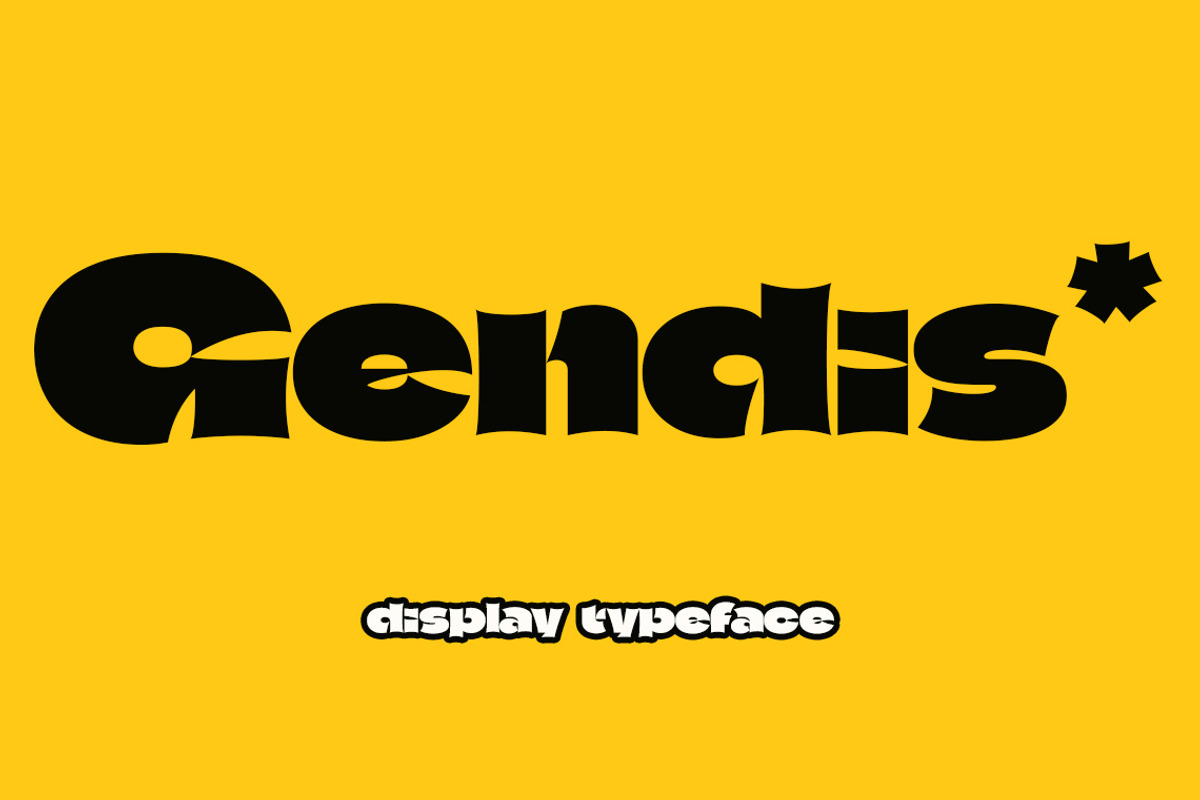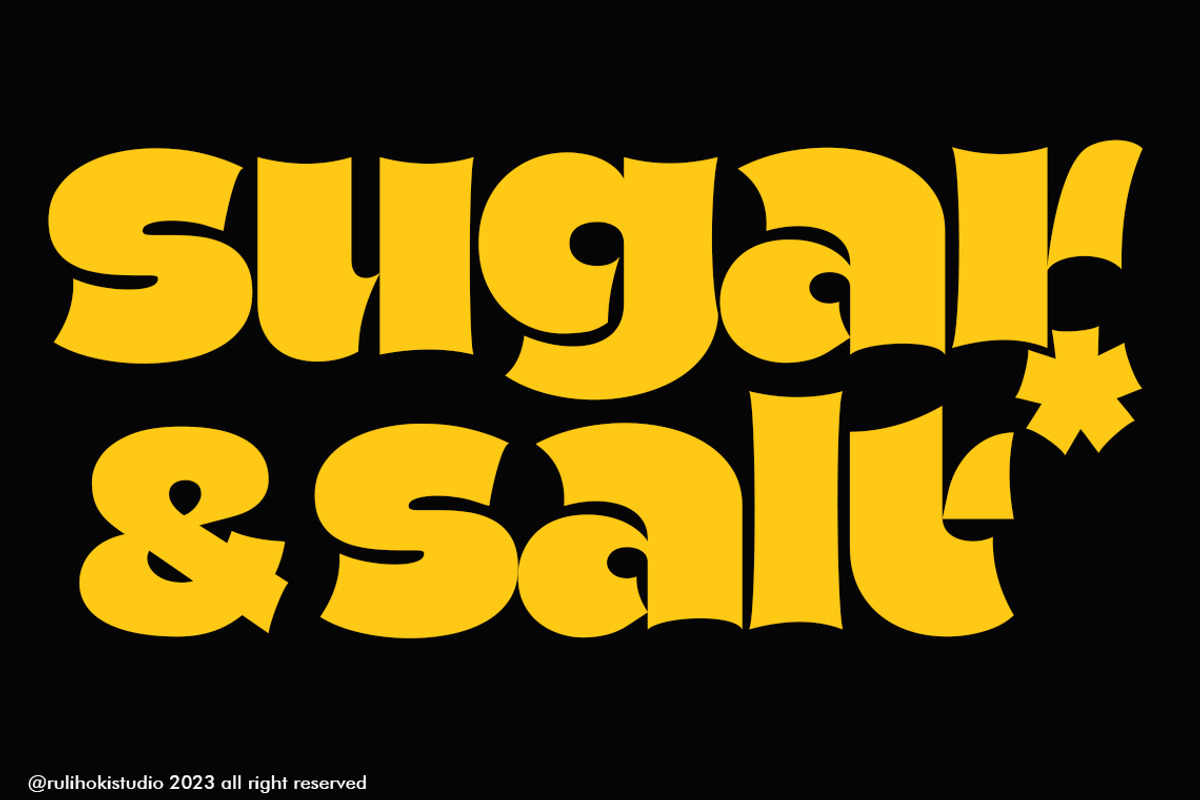
Gendis | Display Typeface
Gendis is modern and bold sans serif typeface featuring characters that stand out from every background. Suitable for logos, posters, packaging, branding, invitations, notes, etc.